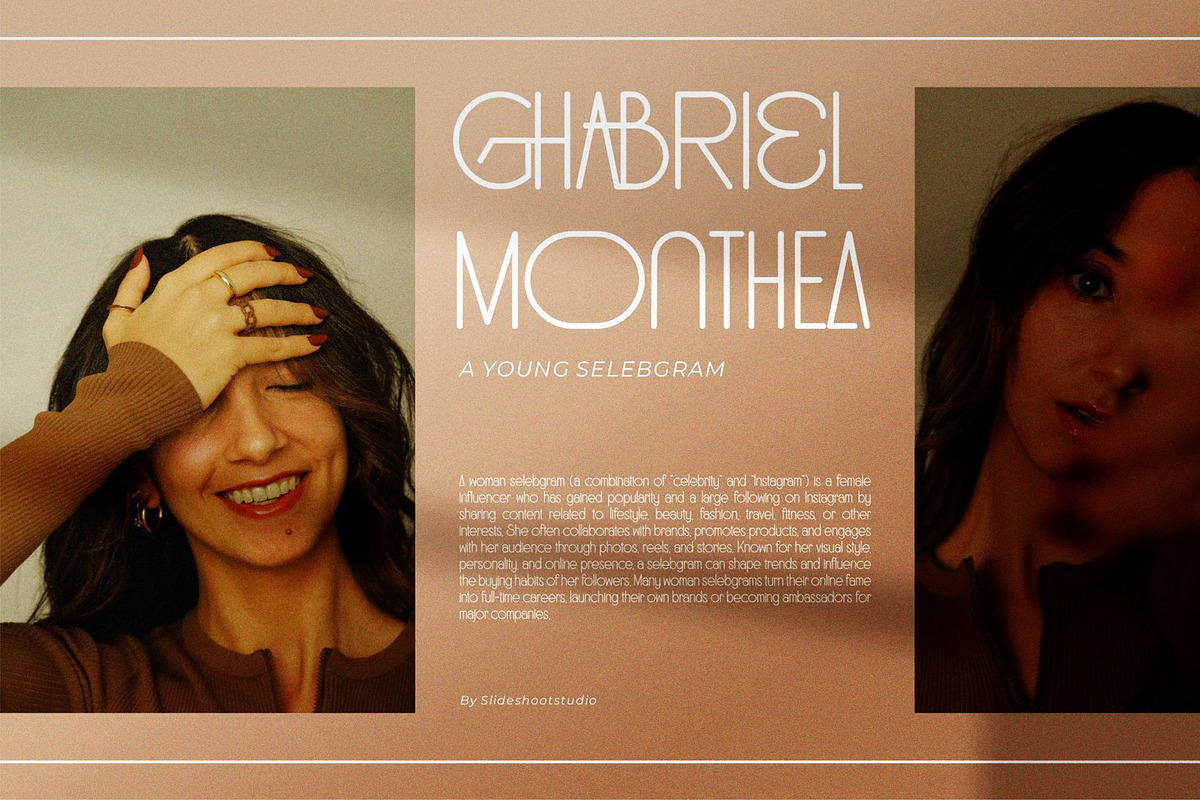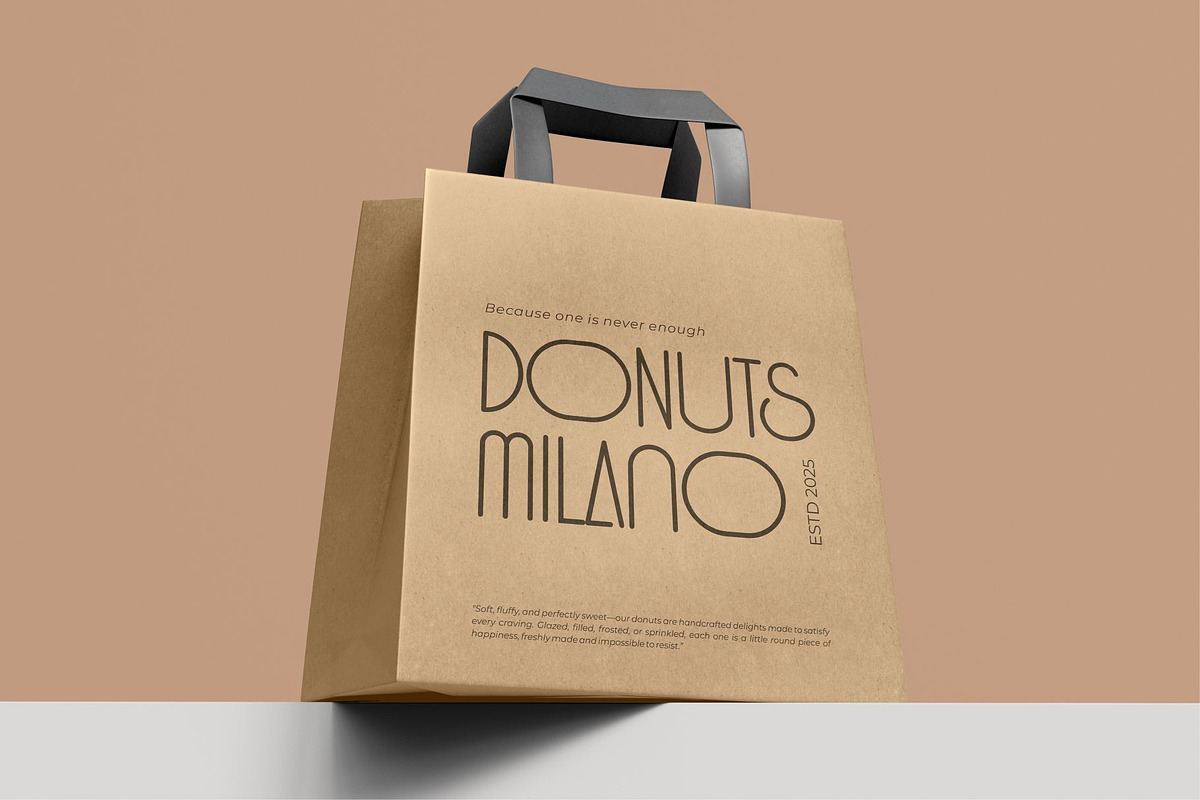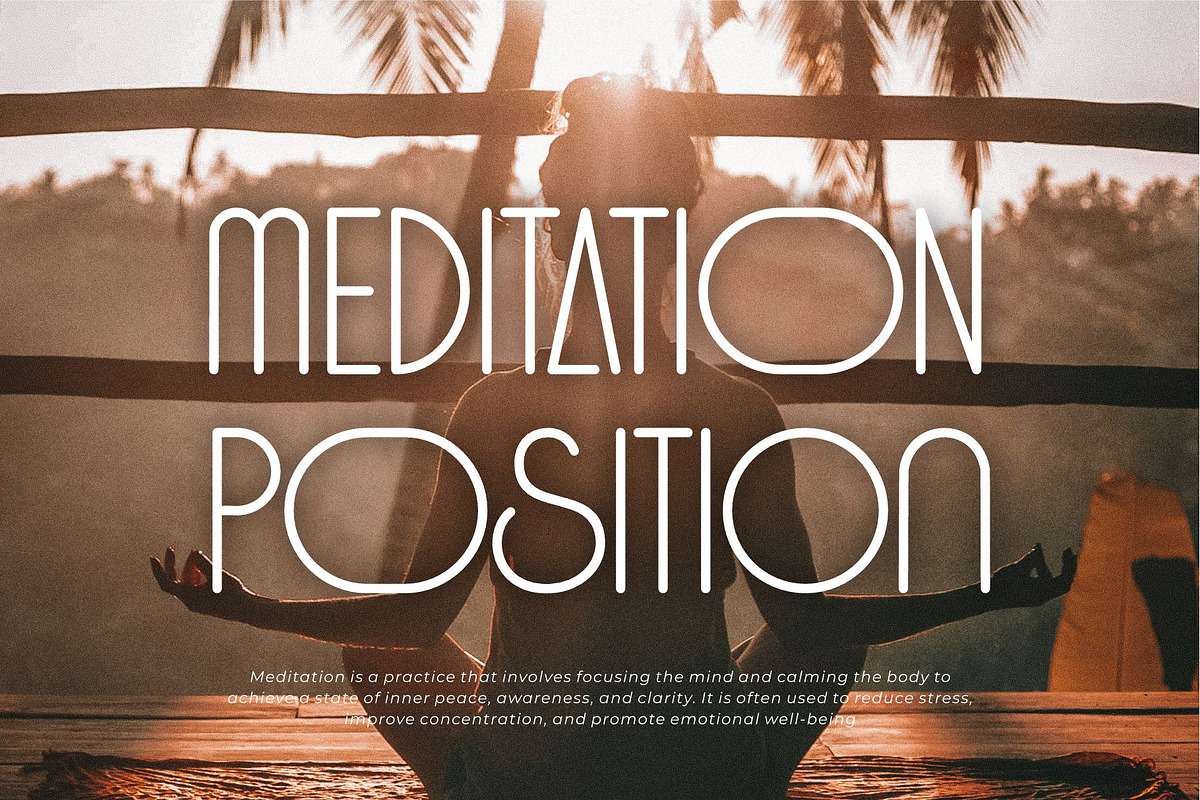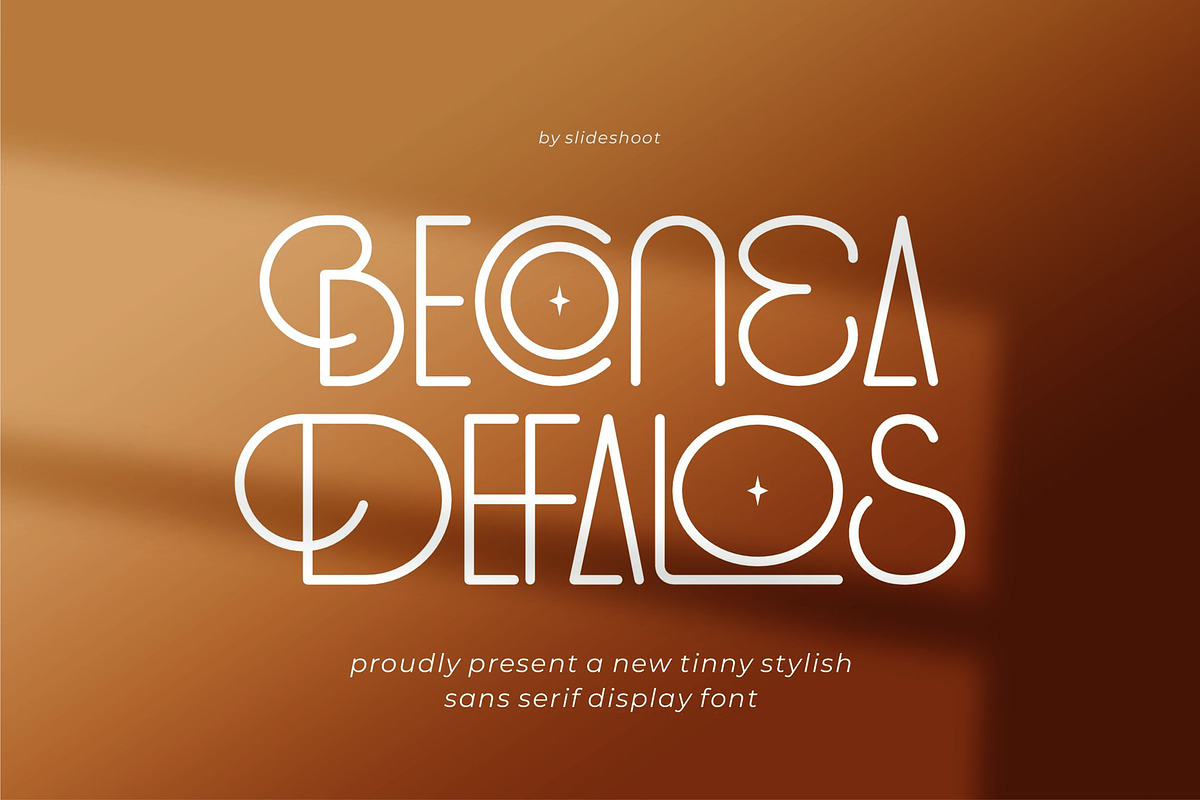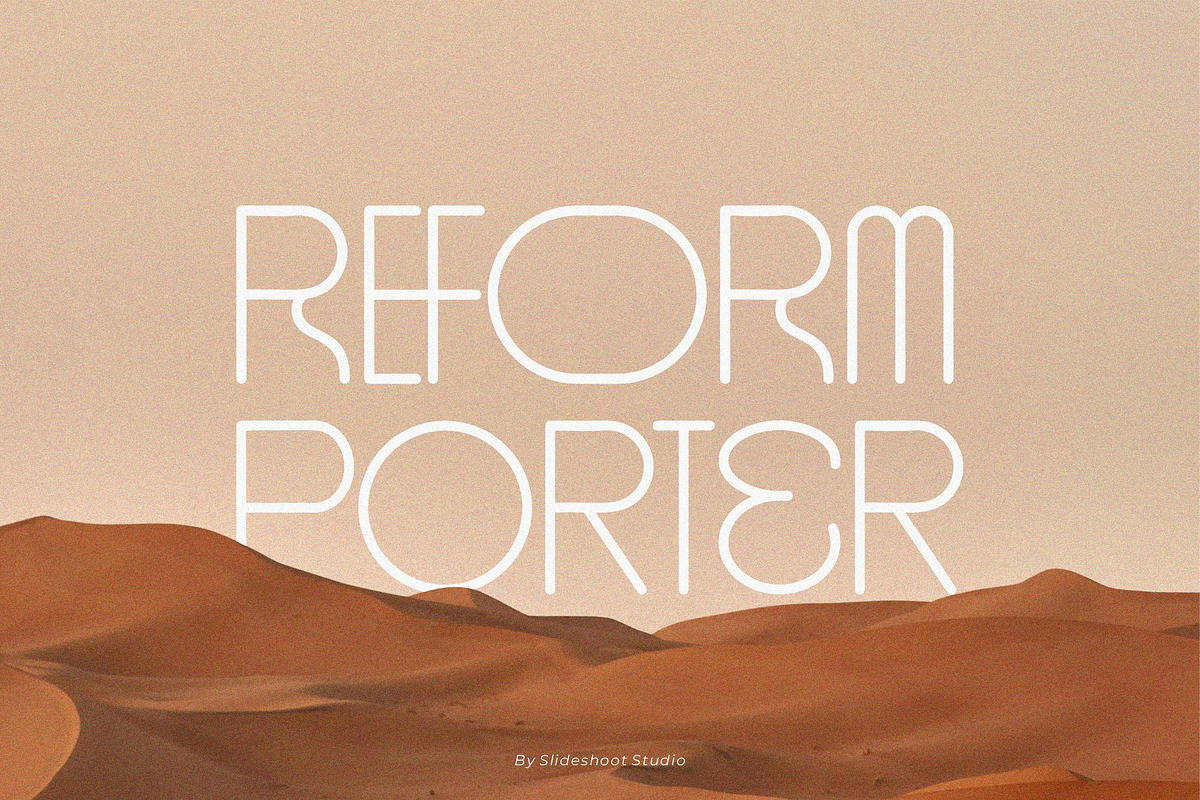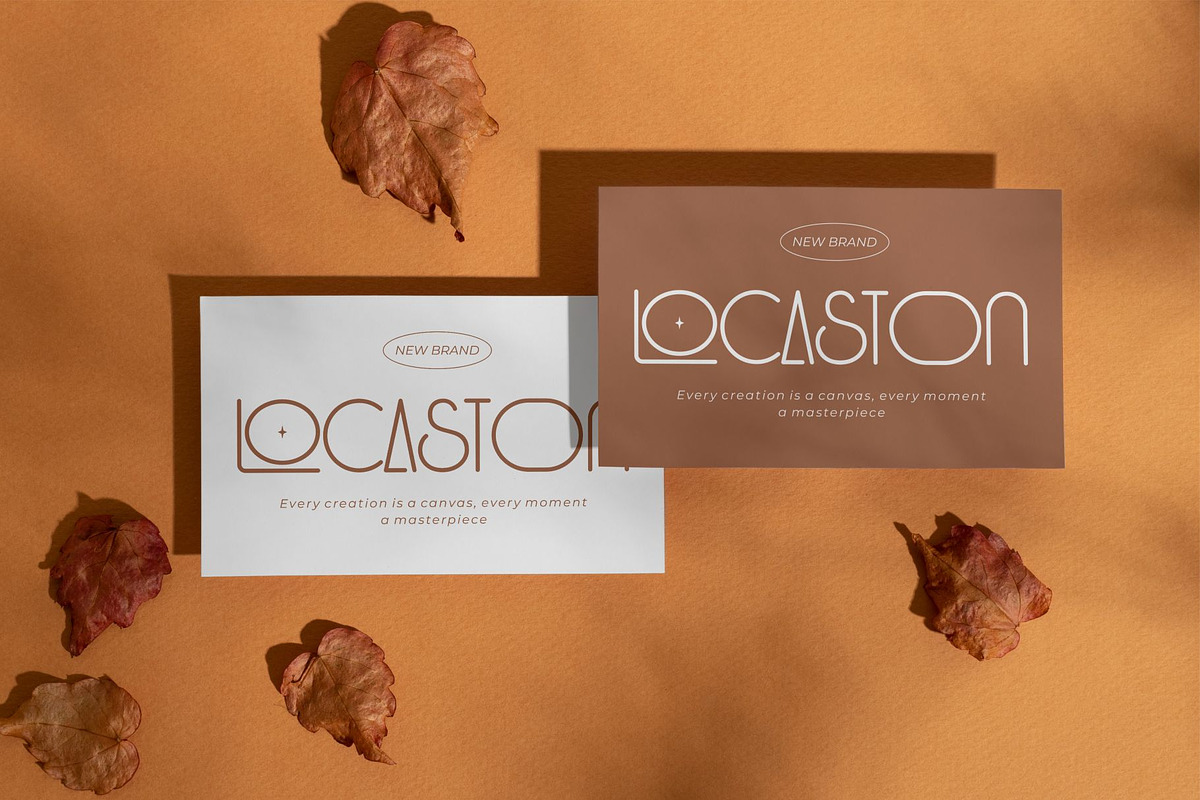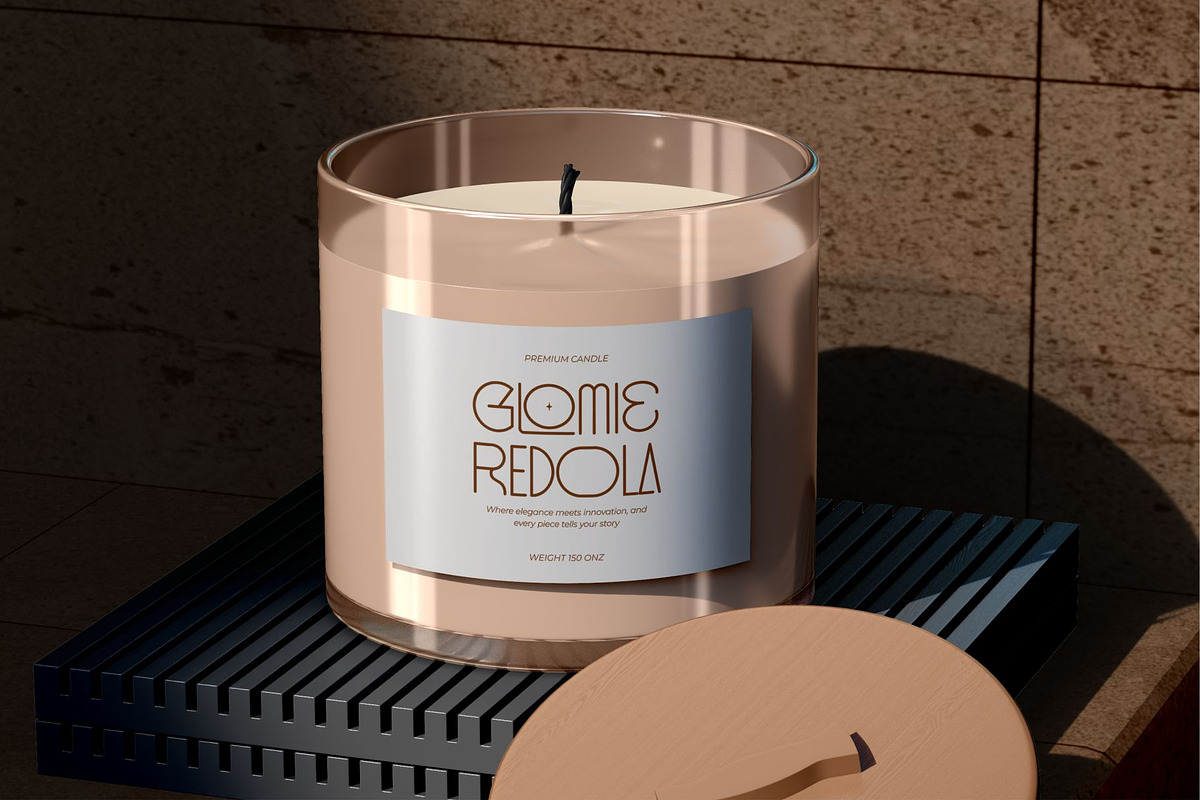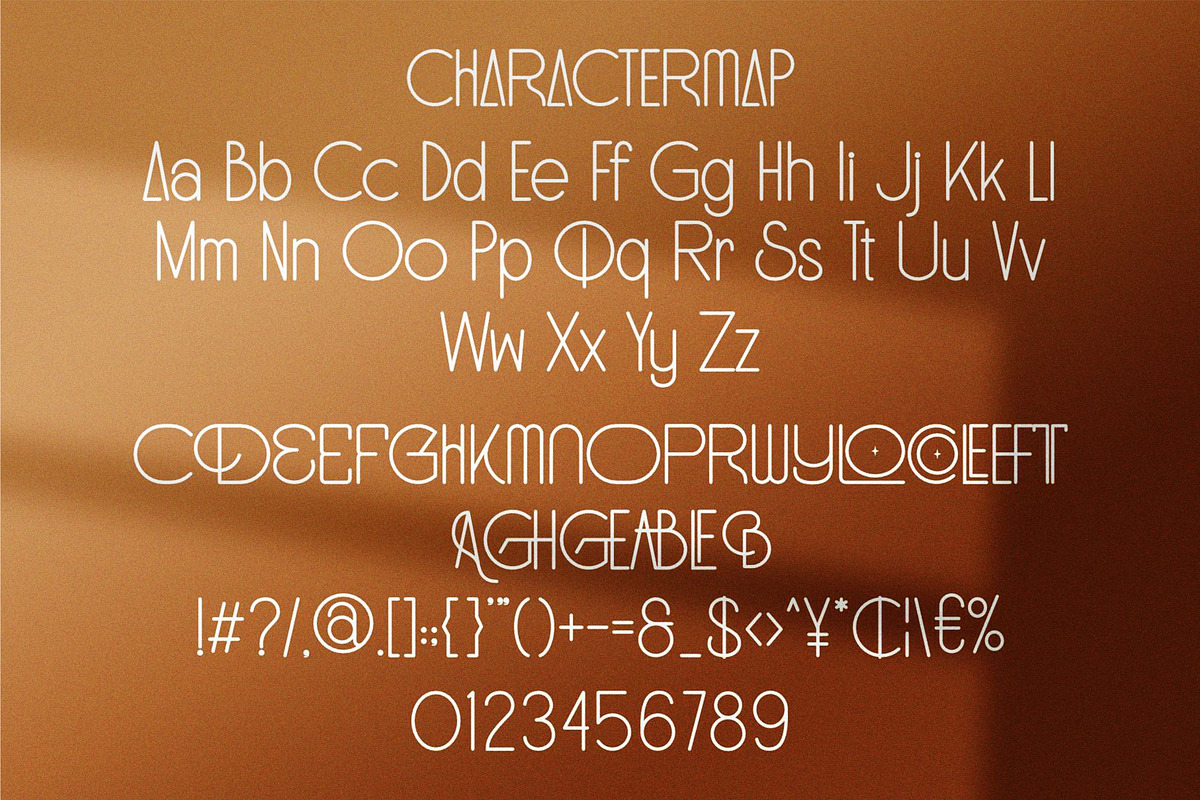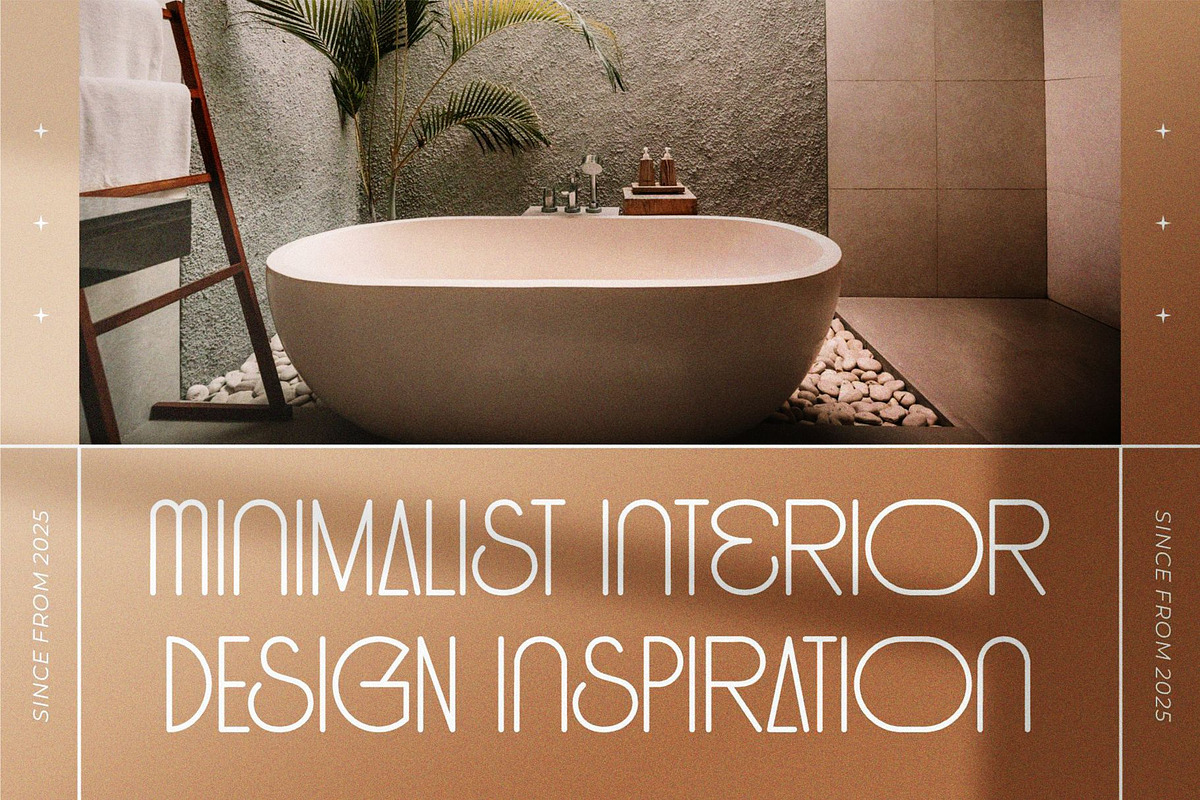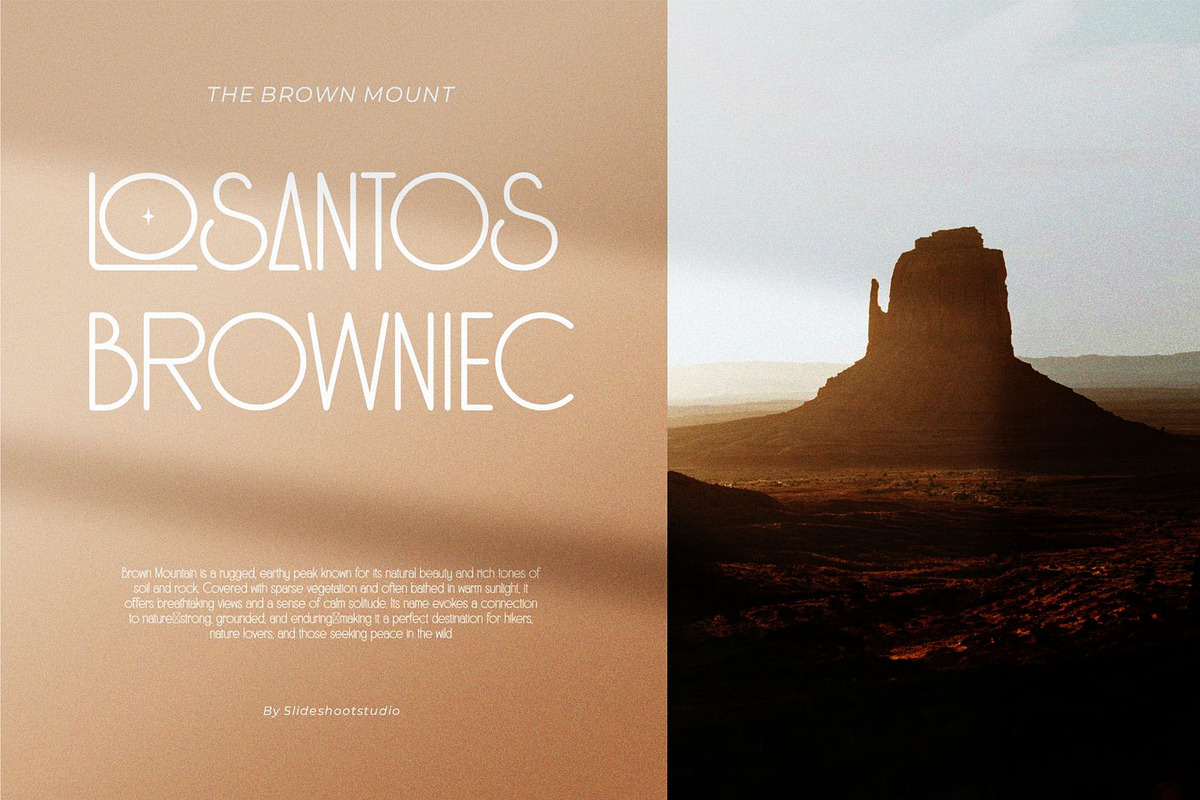
Beconea Defalos | Stylish Sans Serif
Introducing Beconea Defalos is a modern display sans serif font, trendy,cute display font. It has a unique character with wood theme. It is perfect to be combined with invitation card designs, company logos, movie titles, movie names, business cards, book titles, brand names and various other designs.